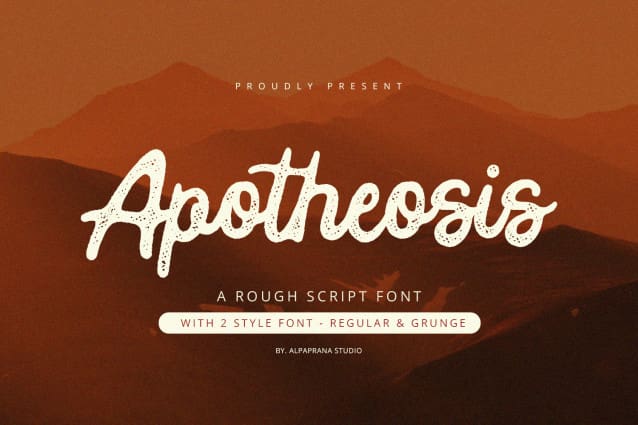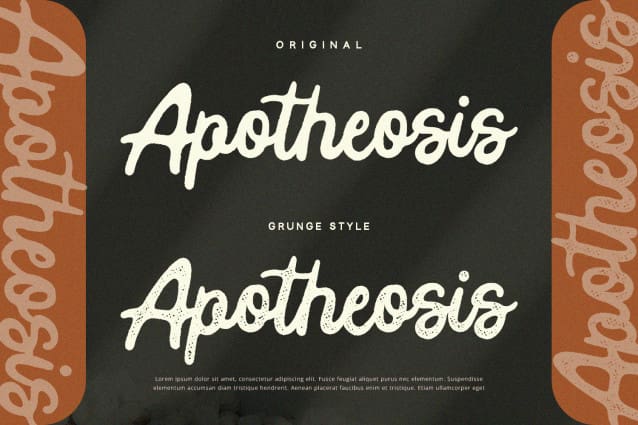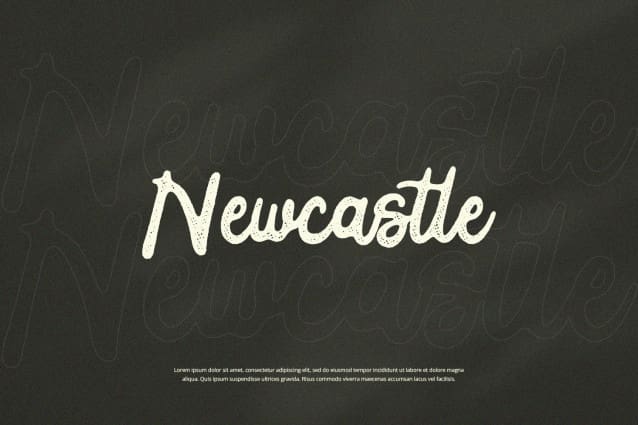
Apotheosis Rough Script Font
Apotheosis Rough Script Font is a rough script font with unique and classic feels. It will be perfectly used for Branding, Logo Design, Lettering, Logotype, Clothing, Poster, magazine, packaging, posters, shopping bags, t-shirts, book covers, photography, special events and other design project.